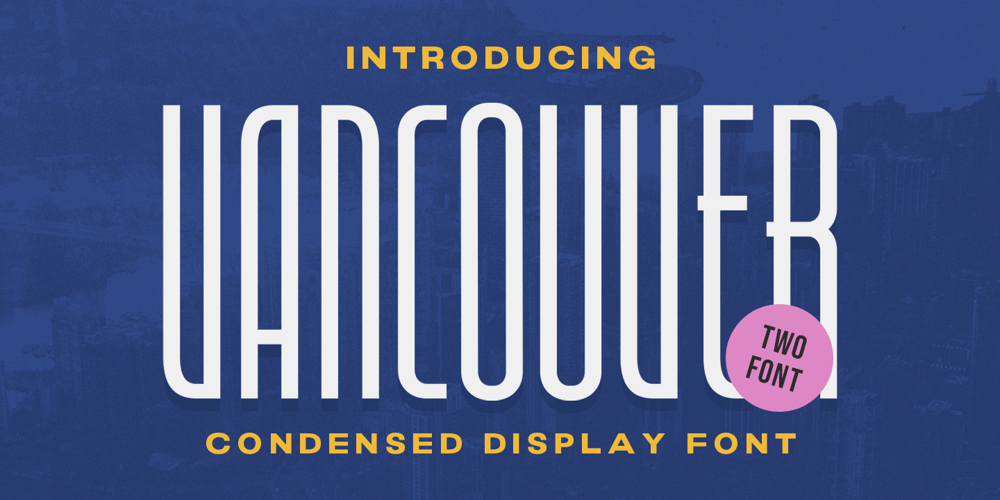
Vancouver Font Family was designed by Hendry Juanda and published by Letterhend. Vancouver contains 2 styles and family package options. Instroducinng the sophciated of modern typography with Vancouver – Condensed Display. This font embodies the essence of modernity, allowing your words to command attention on every page. Its condensed form and contemporary design make a striking impression, while maintaining readability and professionalism. Whether it’s fashion magazines, cutting-edge websites, or sleek branding materials, Vancouver confidently stands out, commanding attention with its modern editorial flair. Let your creativity soar with a font that embodies the essence of modernity and sets your designs apart from the rest.Features : Uppercase & lowercase Numbers and punctuation Alternates Characters Multilingual PUA encoded We highly recommend using a program that supports OpenType features and Glyphs panels like many of Adobe apps and Corel Draw, so you can see and access all Glyph variations.